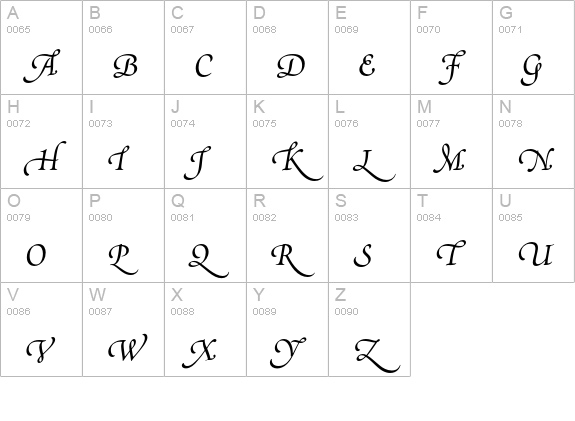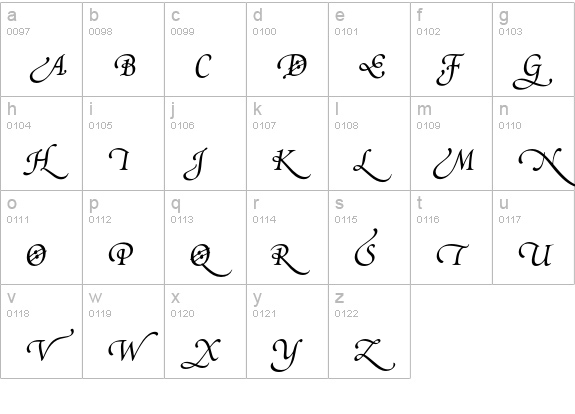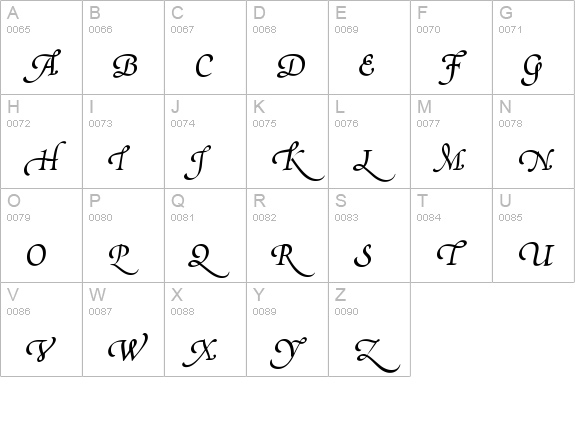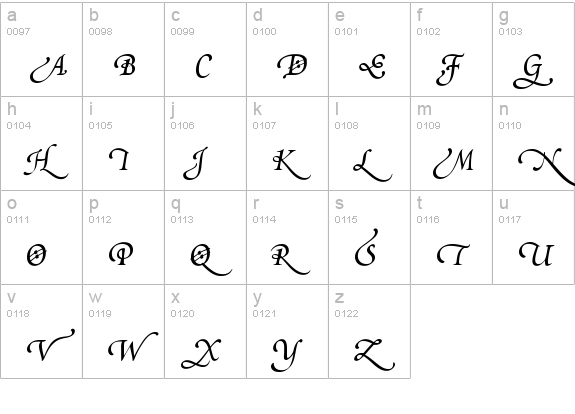
Poetica Supp Swash Capitals IV Font Details
Poetica Supp Swash Capitals IV font is a stunning display typeface that exudes elegance and sophistication. Its intricate swash capitals add a touch of whimsy and flair to any design project. This font is perfect for creating luxurious invitations, branding materials, and editorial designs that demand attention. What makes Poetica Supp Swash Capitals IV font even more appealing is that it is available for free download at FontsMarket.com. This means you can access this exquisite typeface without any cost, making it a valuable addition to your font collection. Embrace the beauty and versatility of Poetica Supp Swash Capitals IV font and elevate your designs to new heights.